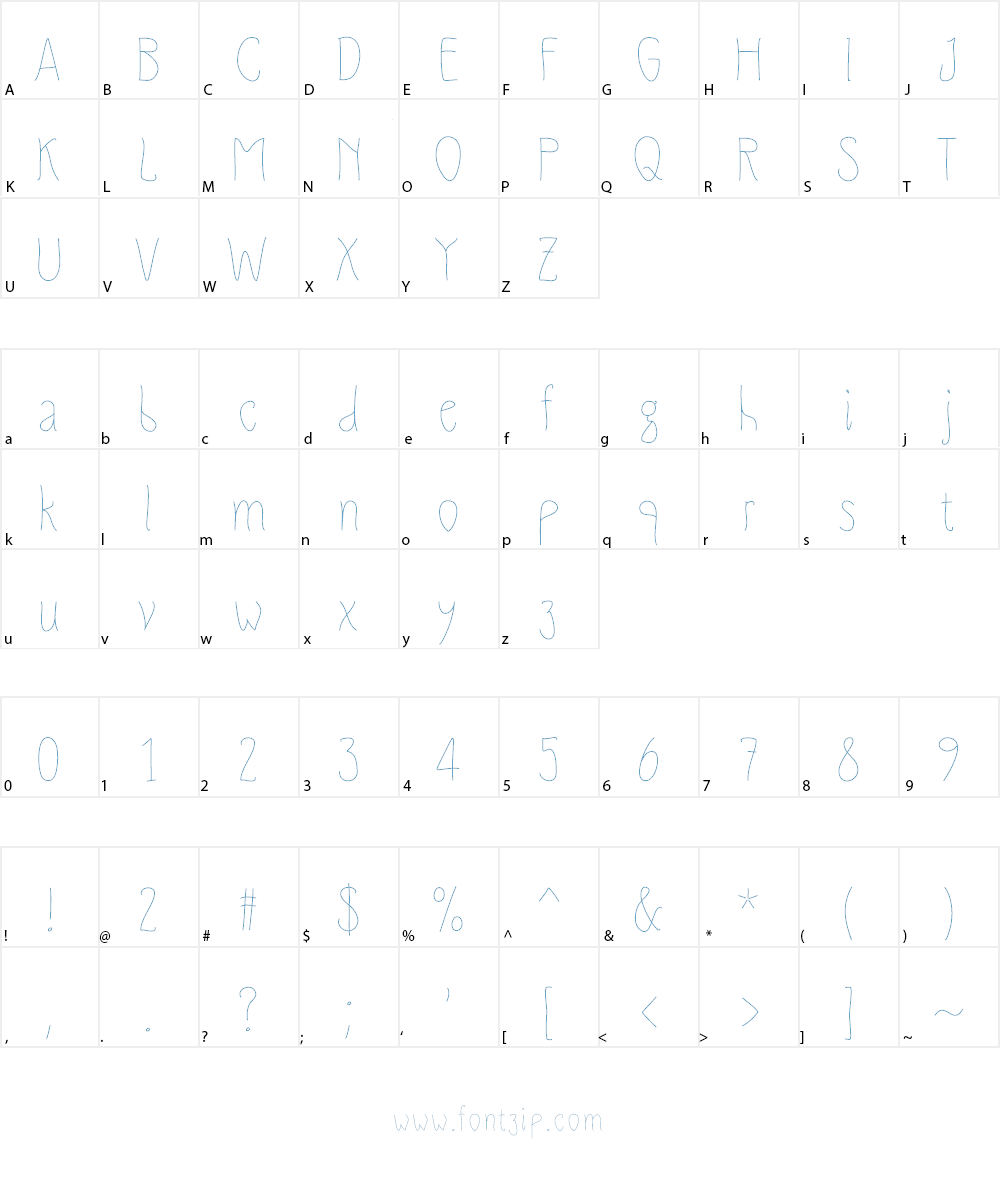
Smimamif is an art nouveau style font with extended support for Cyrillic and other eastern European languages. It was created using iFontMaker. Latest version is available free at http://di.mk/slimamif